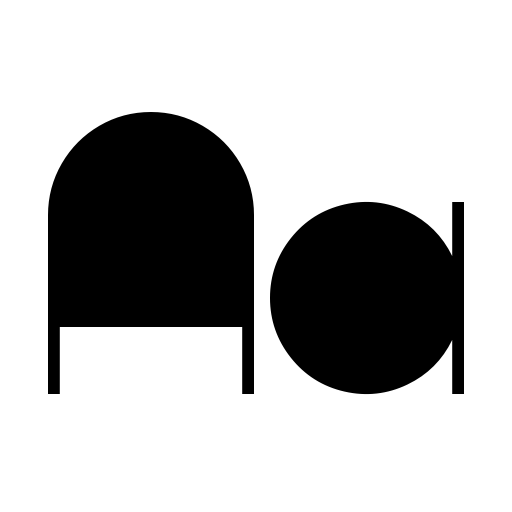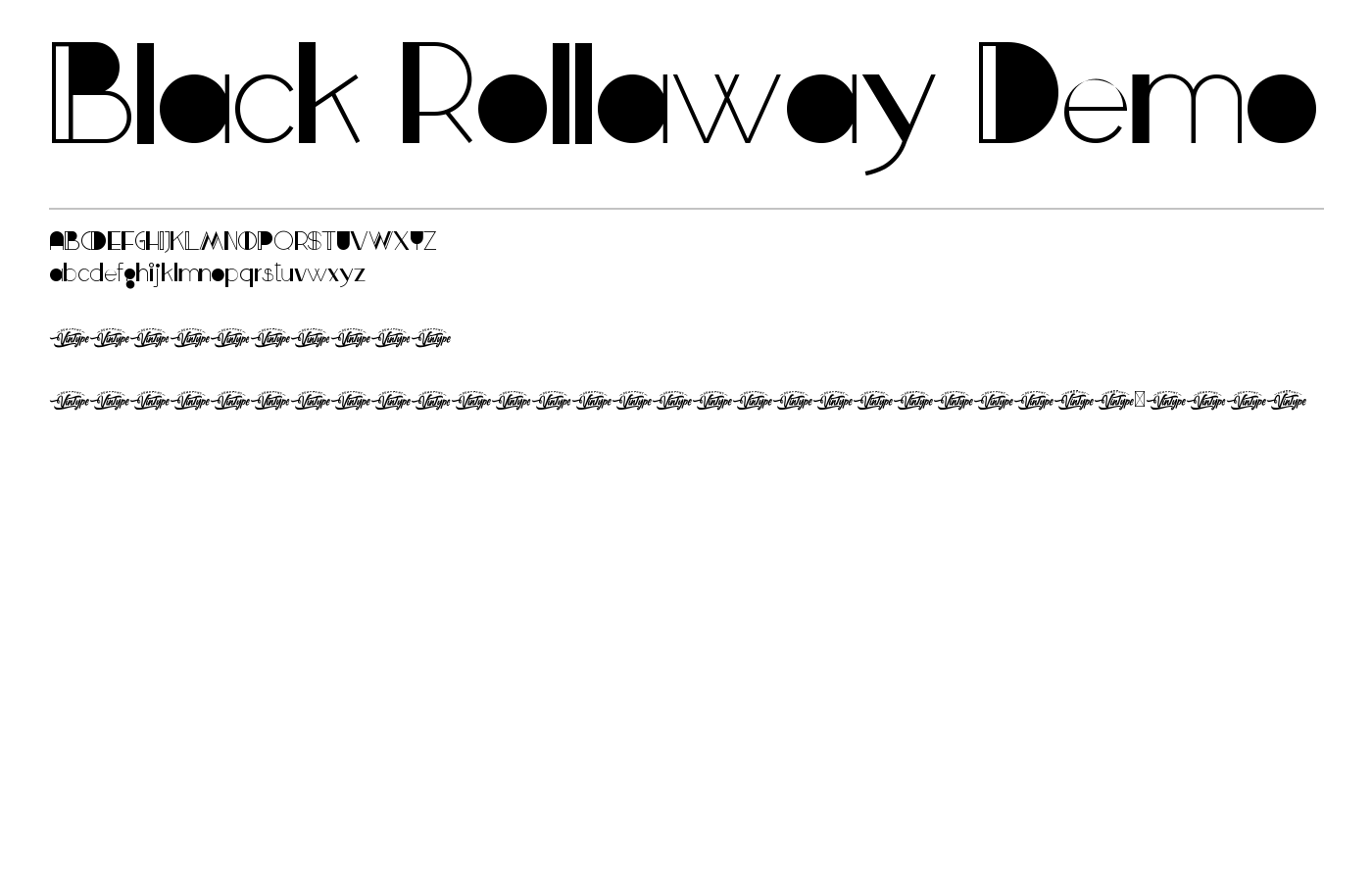
Black Rollaway Demo is a stylish and modern sans serif font with a strong geometric influence, featuring thick, bold strokes contrasted by ultra-thin lines and open, circular shapes. Its unique blend of heavy and delicate elements gives it a sophisticated, artistic feel perfect for eye-catching headlines, logos, and creative branding that seeks a contemporary yet elegant look. This font works well for fashion, editorial projects, and any design demanding a clean but visually striking presence.
Black Rollaway Demo Font
About Black Rollaway Demo Font
| Font family | Black Rollaway Demo Font |
| Designer | Widiyanti & Sarah SP |